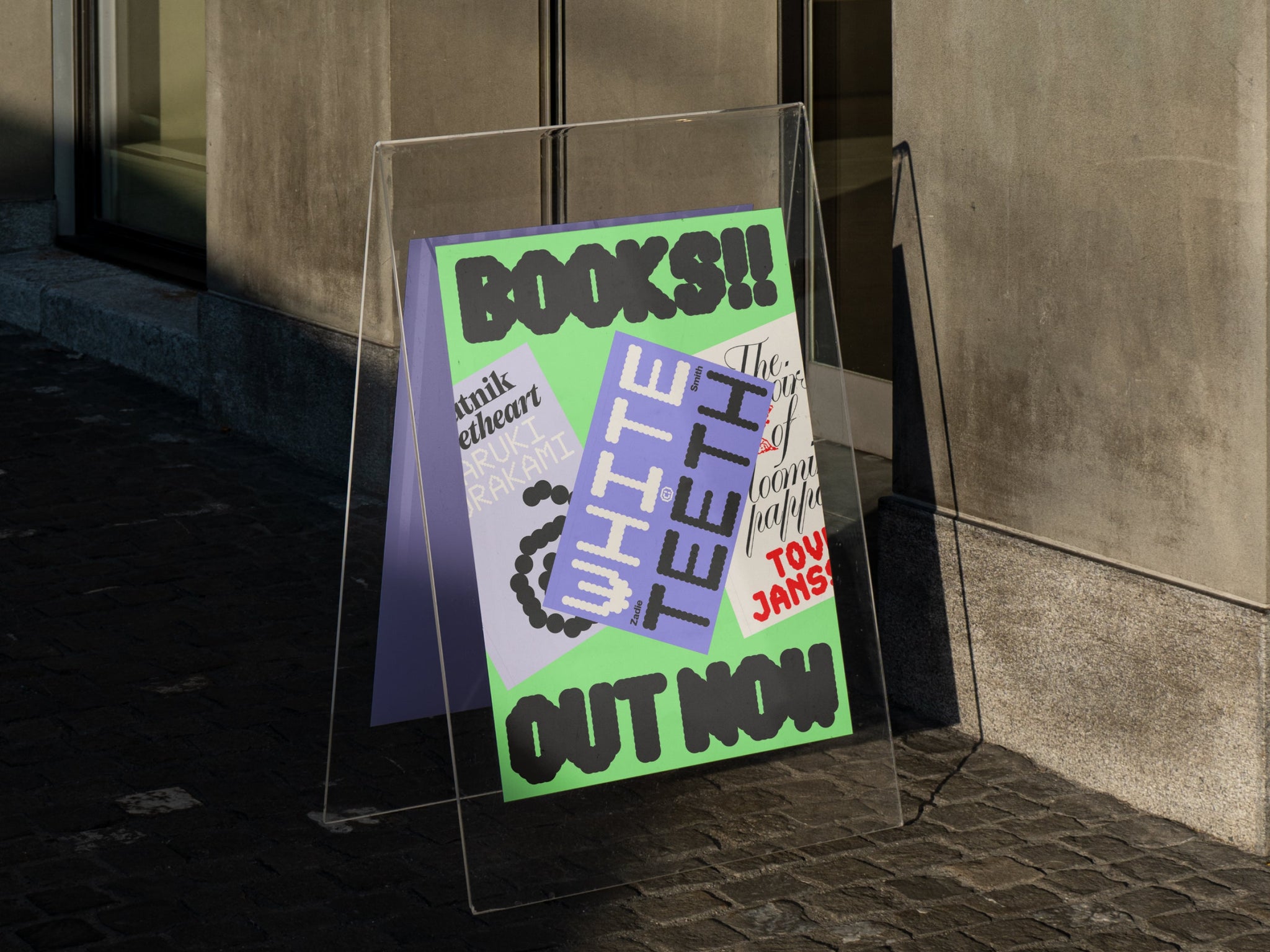
Inspired by vintage punch printers and the playful, ambient diffusing of light, OT Bulb from our sister foundry Off Type is a distinctive, unique outlier when it comes to type design and the normal, expected experience designers and their audiences have with type.
Its overlapping dots and Watt axis, ranging from 100 (dim) to 900 (bright), obscurely blend a sense of nostalgia with a fierce typographic modernity, ultimately feeling incredibly tactile, even within purely digital spaces.
With such a strong aesthetic, however, often it can be daunting to find the right font to pair it with. Helvetica is boring, Arial, Roboto and Times New Roman even more so! Let’s think outside the box a bit, and light your life up with some new pairings to add to your design toolkit. Here are our top font pairings for OT Bulb !
OT Bulb and Editorial Sans ↓
Editorial Sans ’s clean, modern lines offer an equally clean and similarly striking contrast to OT Bulb ’s eccentric, bulbous forms. While OT Bulb’s light leaks and bright variations can bring a playful energy to your design, Editorial Sans’s slender, contemporary style grounds the visual narrative with a sense of understated purpose and poise.
OT Bulb and Neue Montreal ↓
The new classic combo. Neue Montreal ’s versatile Grotesque structure complements OT Bulb ’s expressive aesthetic by offering a neutral yet compelling counterpoint. The tight kerning and balanced proportions of Neue Montreal provide a clear, timeless contrast to the OT Bulb’s exaggerated forms, crafting a combination that feels functional and effervescent, with plenty of personality and style, mixed with a little touch of weirdness (just how we like to do it at Off Type!).
OT Bulb and Editorial New ↓
Editorial New is a crowd-pleaser for a reason. With beautifully refined serifs offering a classy counterbalance to OT Bulb ’s rounded forms, the elegant, narrow design of Editorial New contrasts nicely with OT Bulb’s overlapping construction, creating a wonderfully harmonious blend of classic elegance and contemporary flair.
OT Bulb and Hatton ↓
With Hatton ’s recent Italic update, the pearlescent serif is now even more appropriate as a pairing with OT Bulb , offering versatility alongside its historical charm and detailed craftsmanship. Adding greater depth and character to the bright, often whimsical tone of OT Bulb, together, they create a dynamic interplay between something industrious and something debonair.
OT Bulb and PP Playground ↓
Why not go a bit mad? PP Playground and OT Bulb are both big, expressive fonts which, on paper, seem insane to combine together; however, in practice, the pair is uniquely atmospheric. PP Playground’s fluid, calligraphic form becomes an effective contrast to OT Bulb’s geometric and experimental construction, making a typographic duo that’s even more graphic than the sum of its parts. It’s not always minimalism that wins, and in this pairing, maximalism is sure to give your designs that extra bit of brightness you’re looking for.